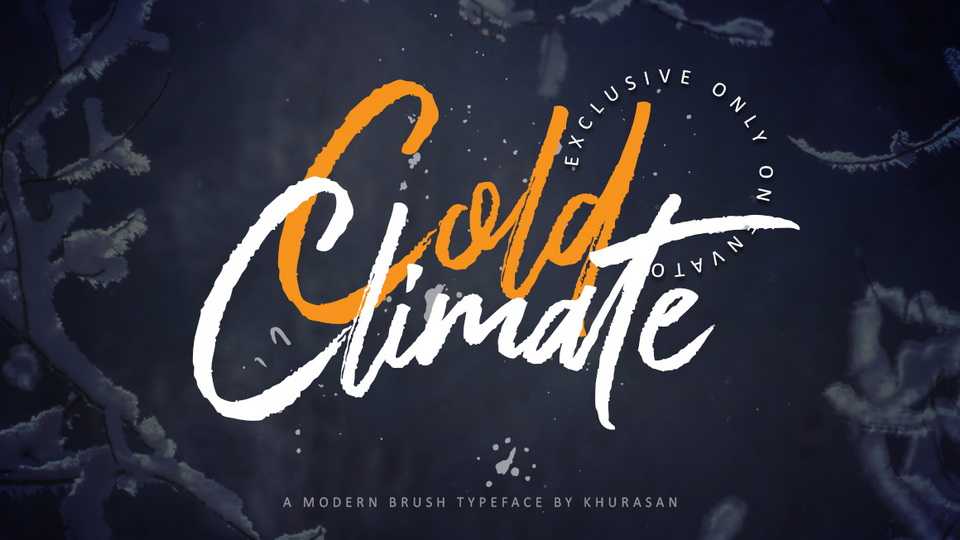
Download Cold Climate font, a fresh handwritten brush script with a strong and eye-catching feel. Cold Climate font perfectly fits for posters, banners, t-shirts, packaging and more.